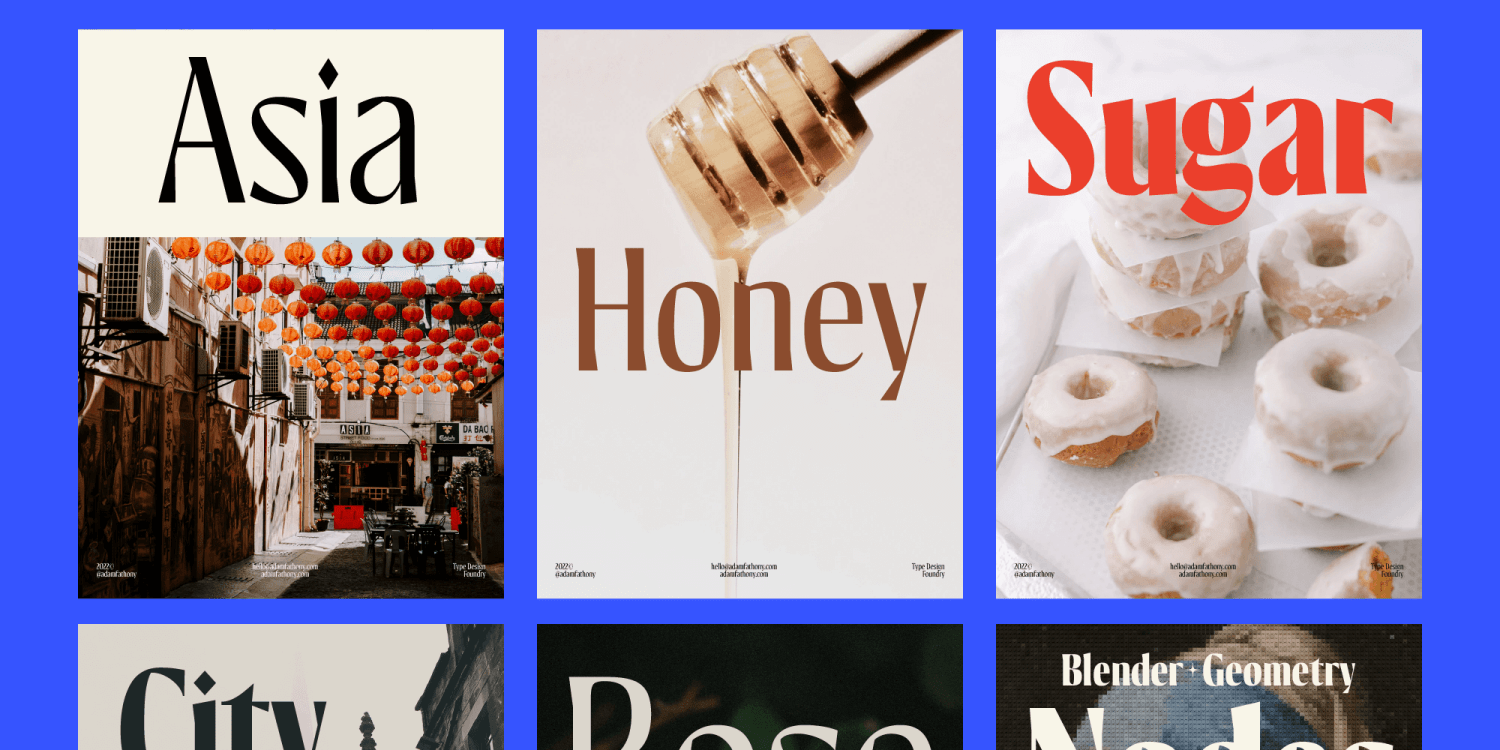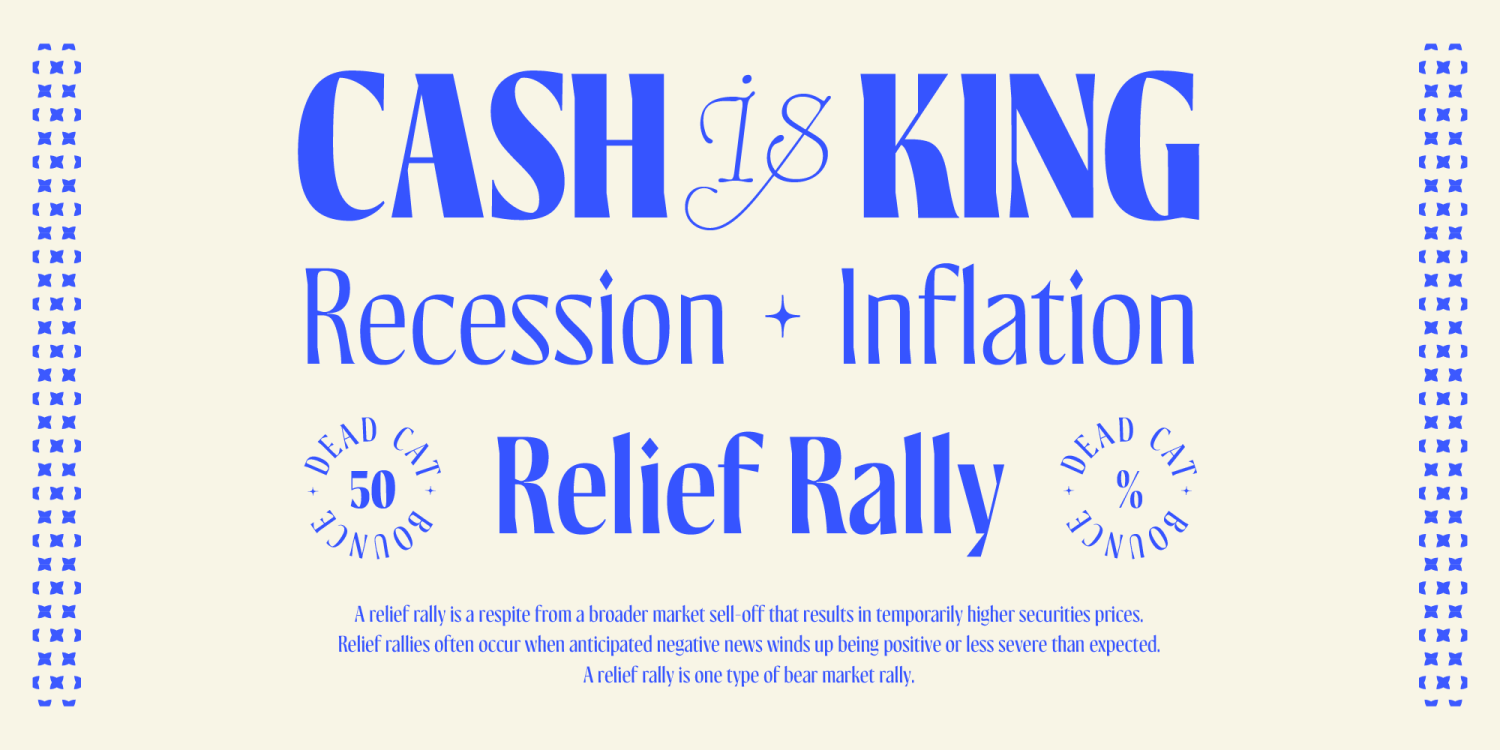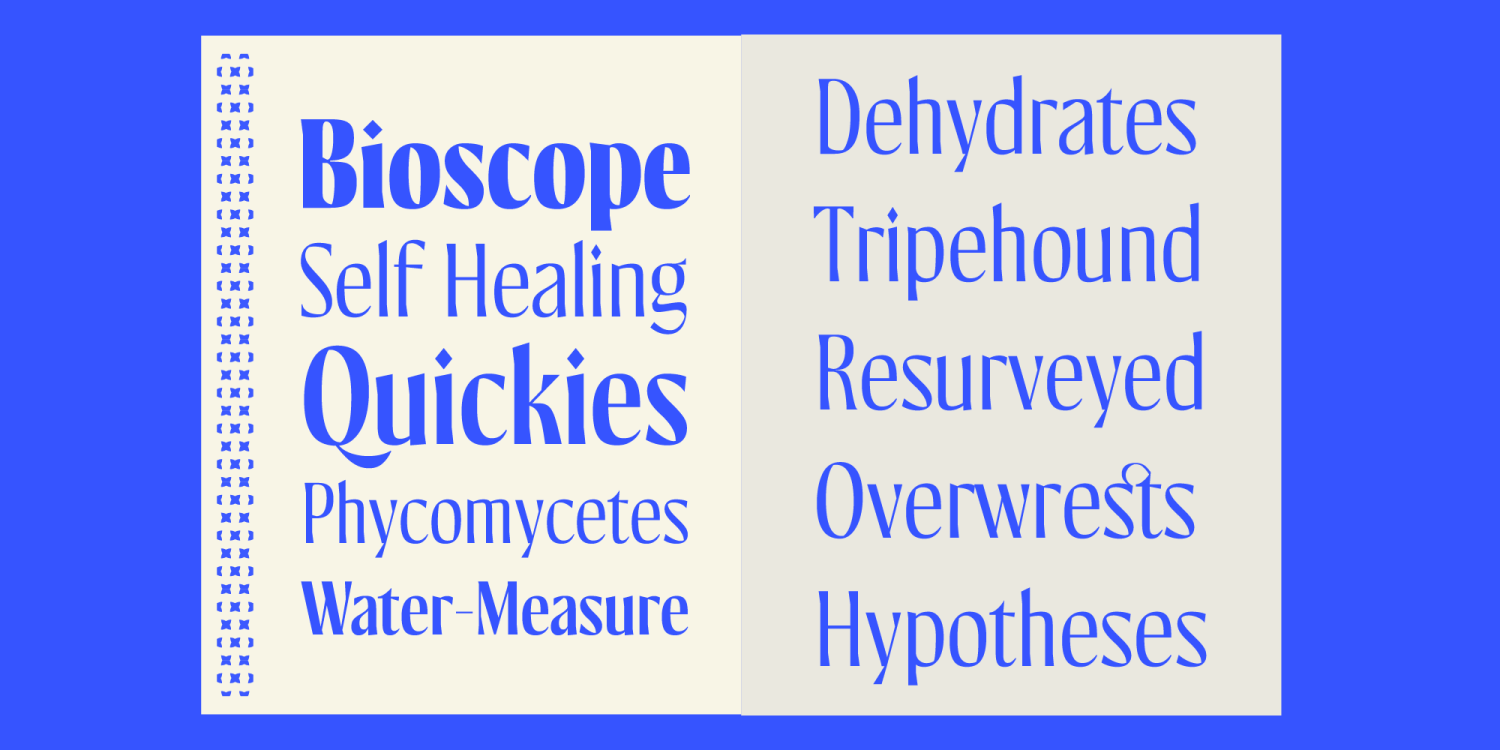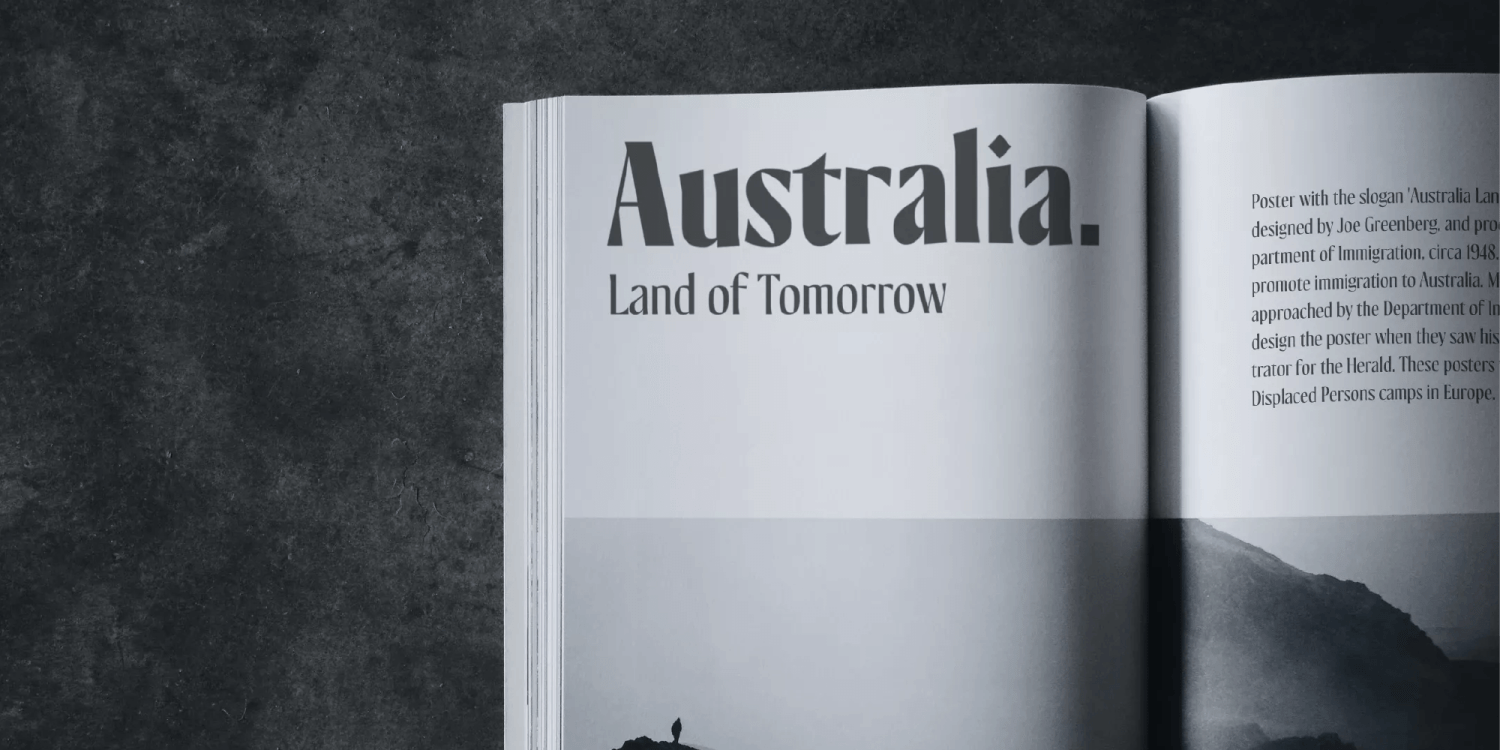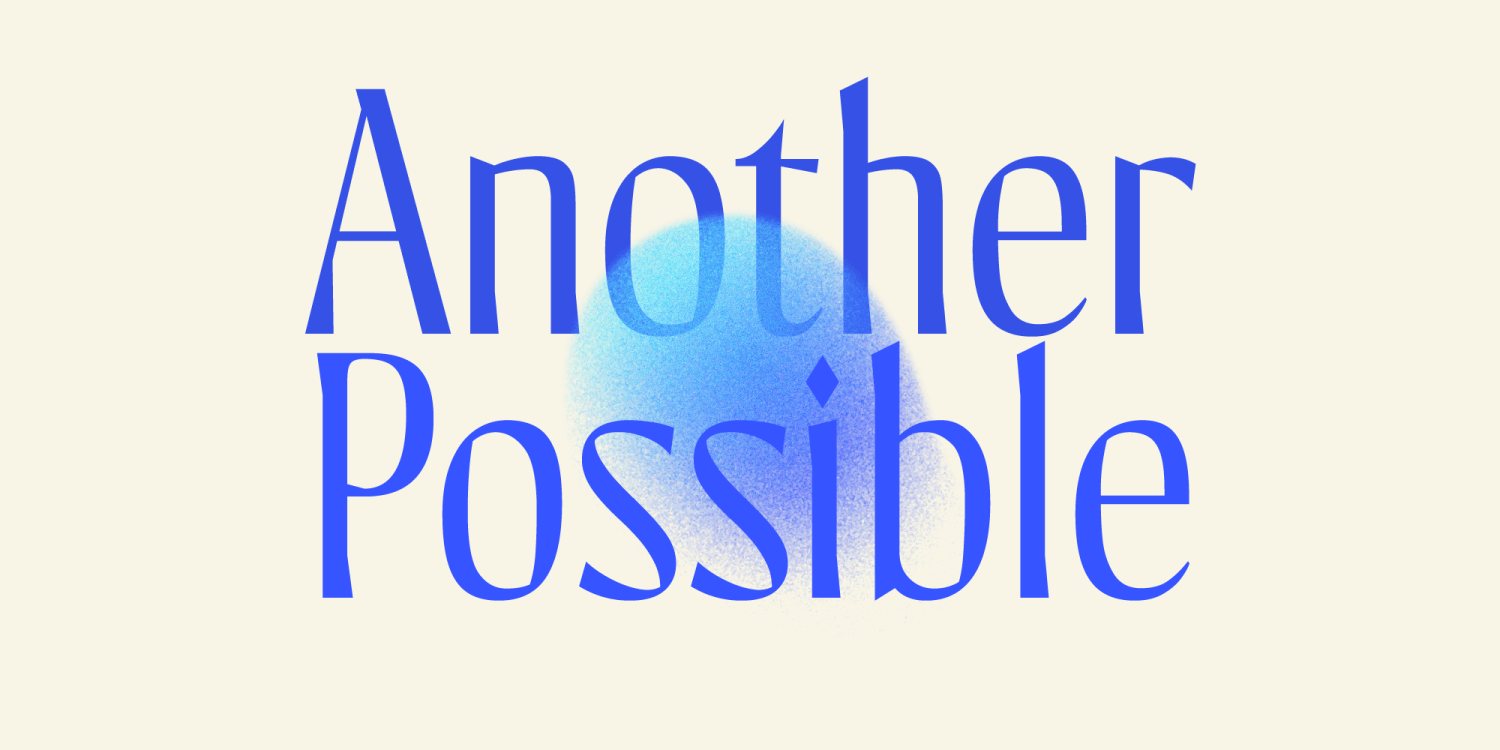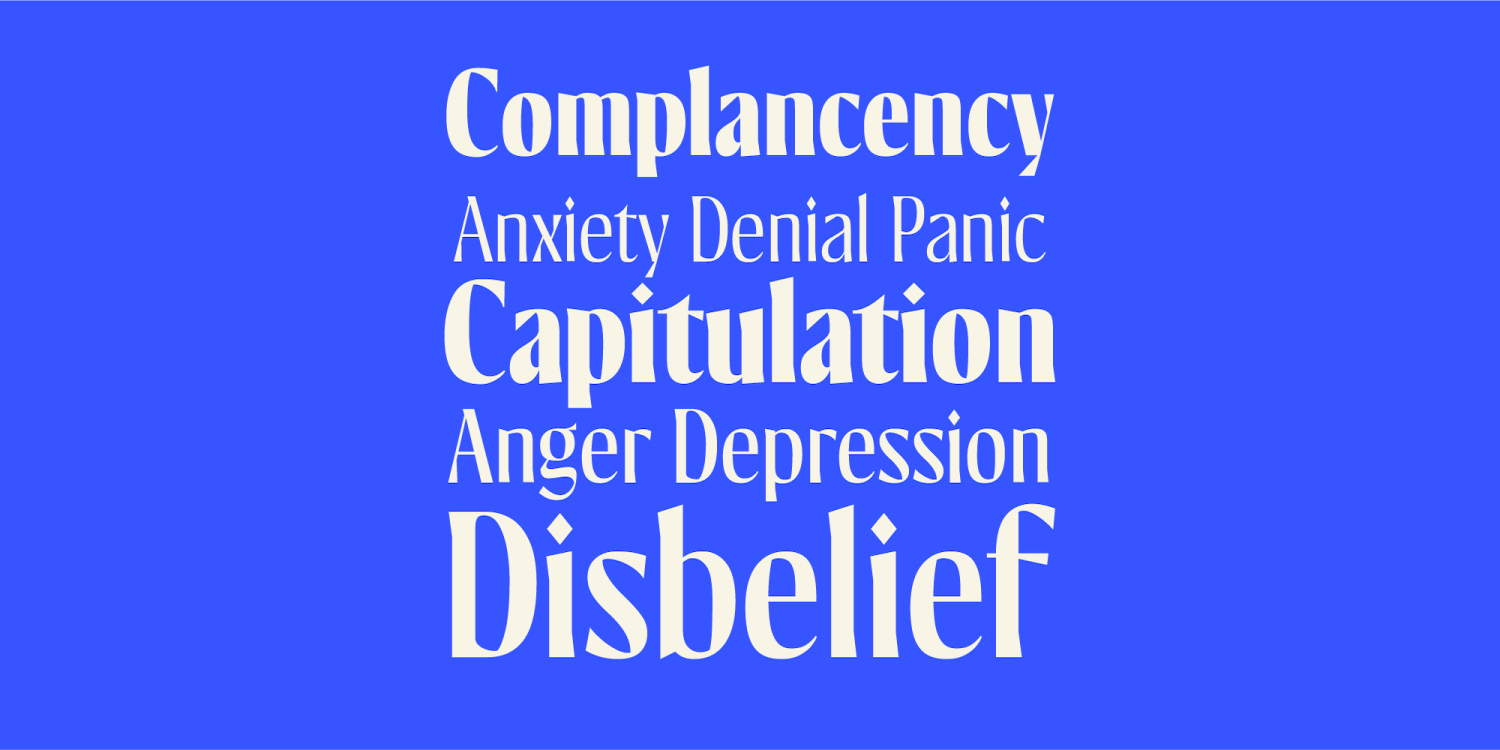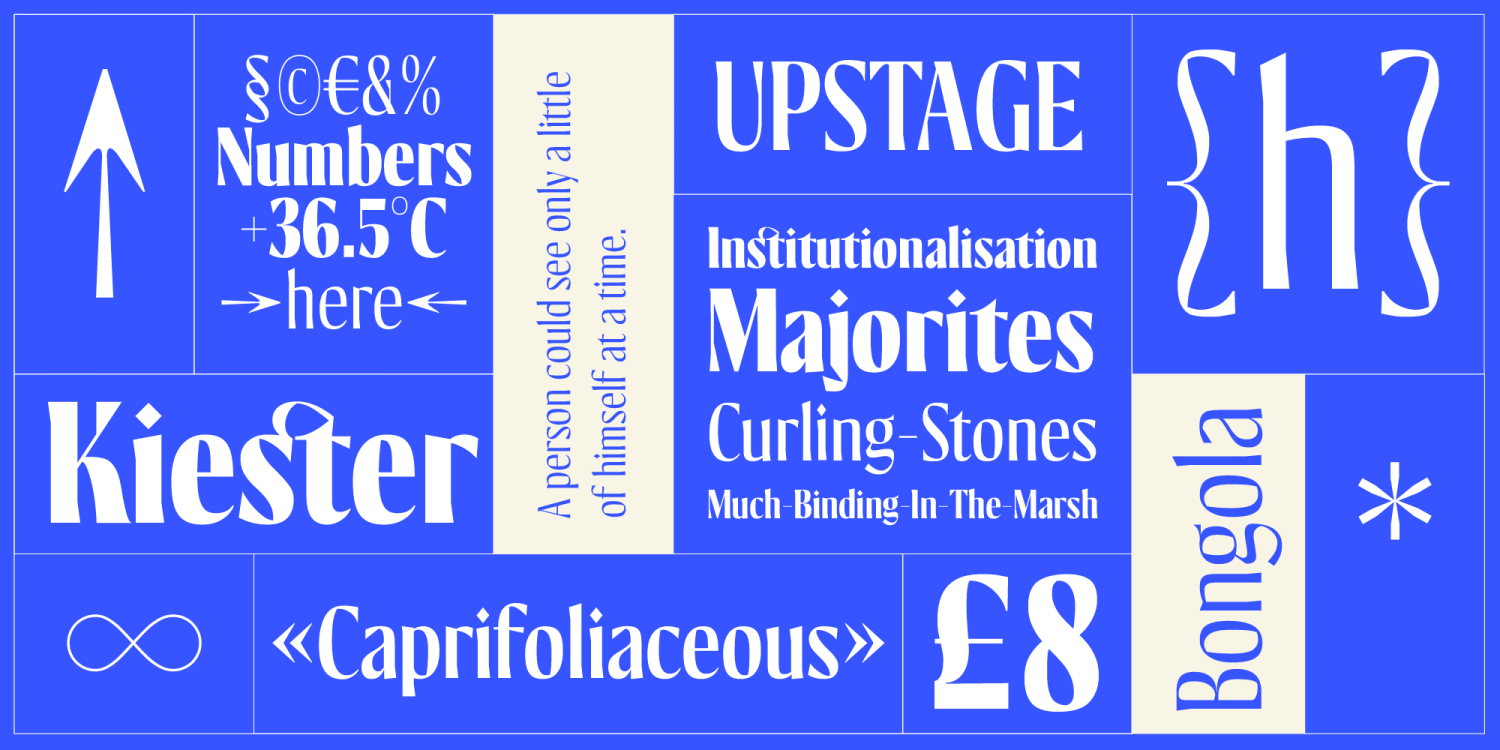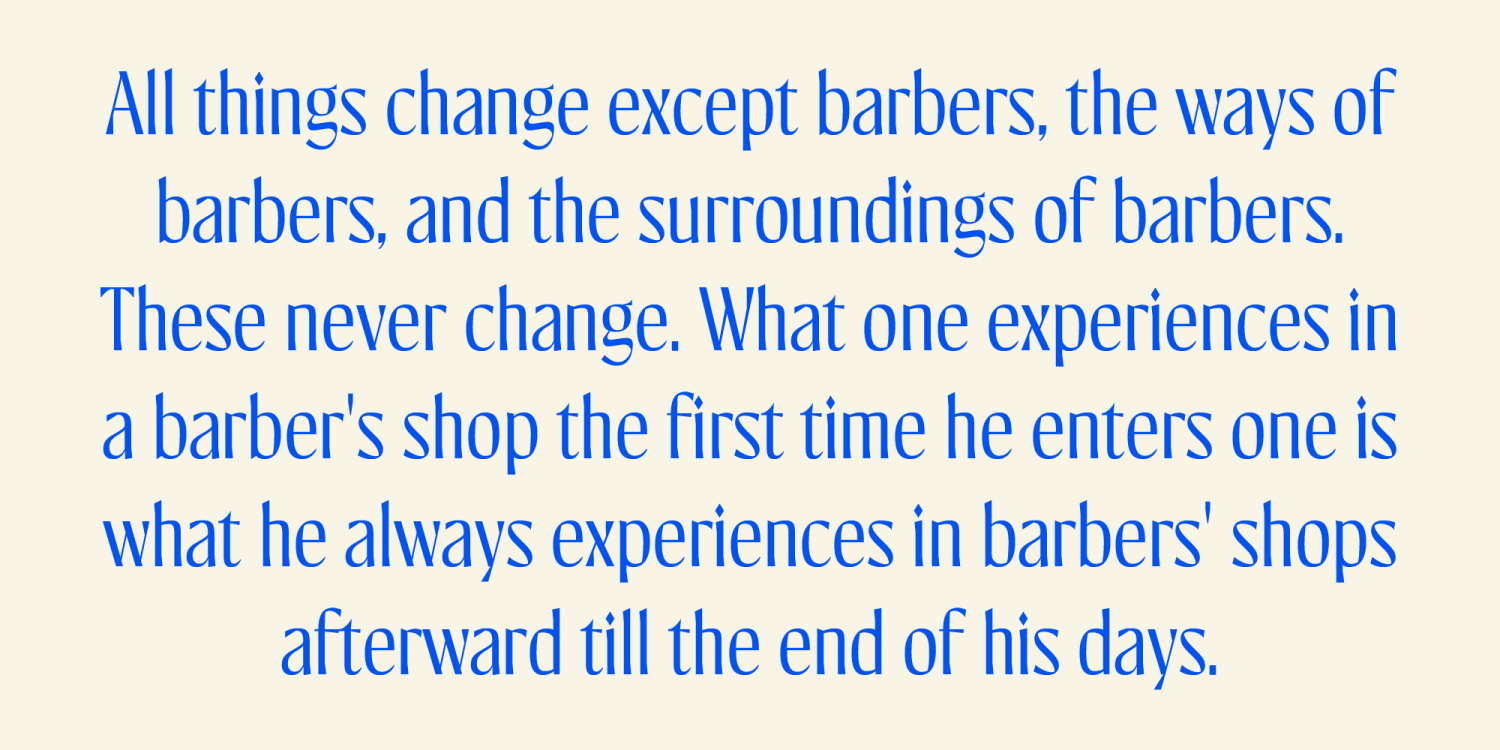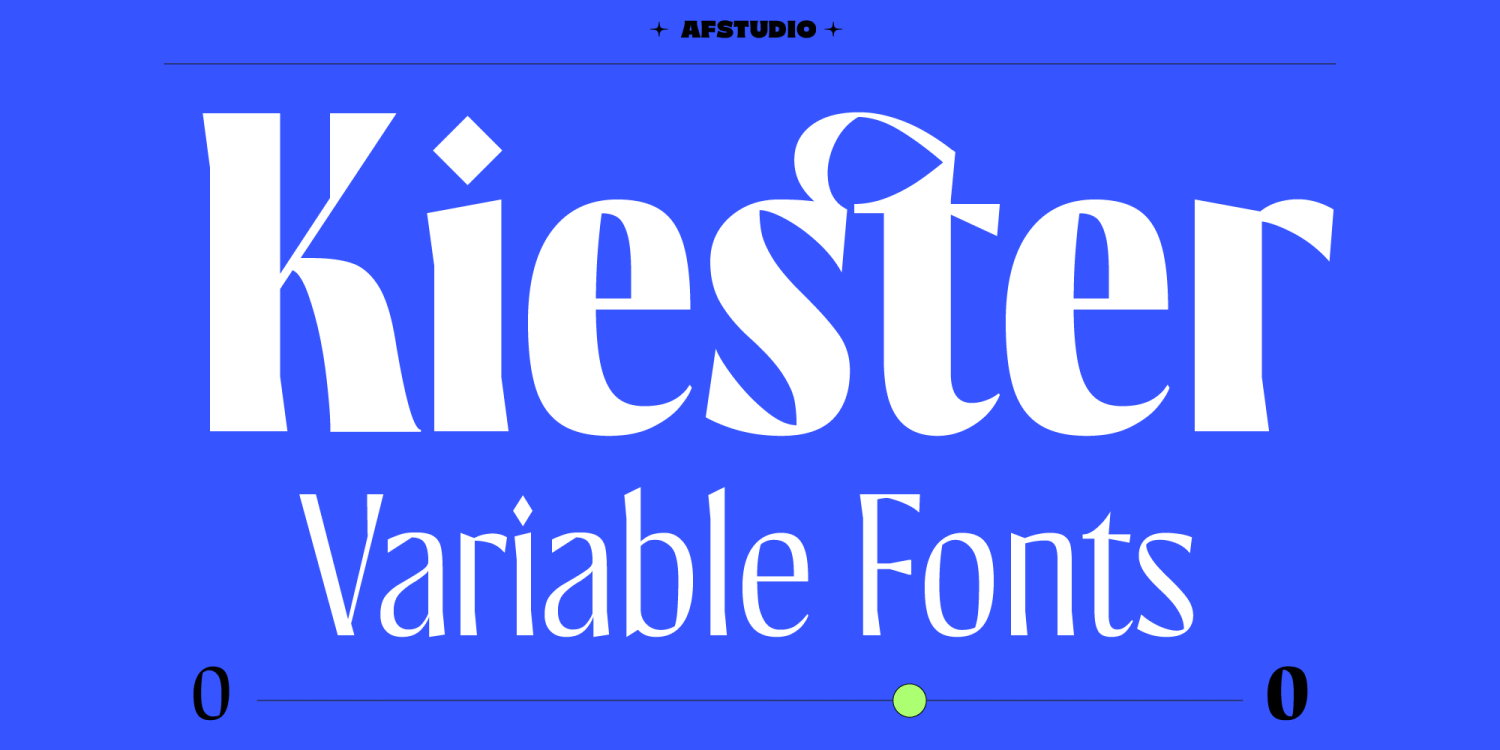
Kiester
About Kiester
Kiester is a modern, elegant variable font. Basically this is a Sans with a small touch of serif on every letters. A Simplicity yet very legible with various width and weight that you can explore, combine, create and help you design something such as…